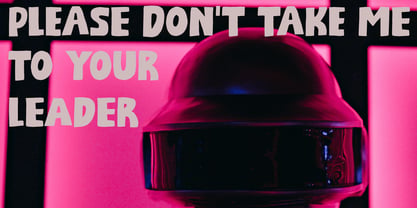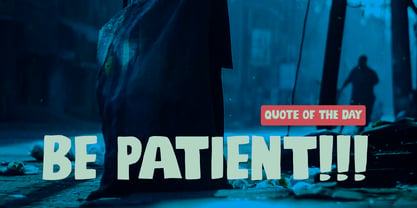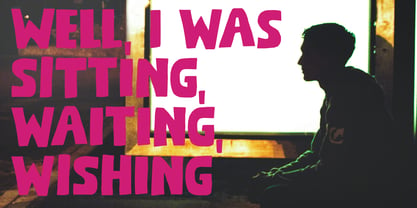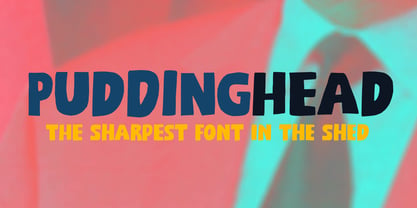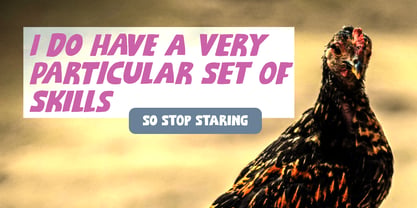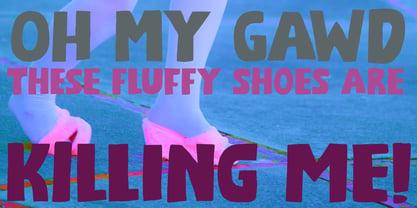
Puddinghead Pro
by Hanoded
The Puddinghead Pro Font Family was designed by David Kerkhoff and published by Hanoded. Puddinghead Pro contains 2 styles and family package options. More about this family
There seems to be an endless supply of puddingheads these days! It’s almost like people enjoy being one!
Puddinghead is a goofy, handmade font. What it lacks in sophistication and class, it makes up in bravoure and boldness. Puddinghead is the go-to font for in-your-face ads, loud headlines and ‘get off my land’ signs. And anything in between of course! ;-)
Designers: David Kerkhoff
Foundry: Hanoded
About Hanoded
Hanoded is run by Dutchman David Kerkhoff. His fonts are a mishmash of styles, as he just creates whatever pops into his head. You will find a lot of brush fonts in his collection, as his favourite tools are brushes and Chinese ink, with cartoon style fonts and script fonts complementing his repertoire. Aside from making fonts, David occasionally guides tours in far-flung places, renovates his '30's house and tries reasoning with his wife and (teenage) kids. Not an easy task!